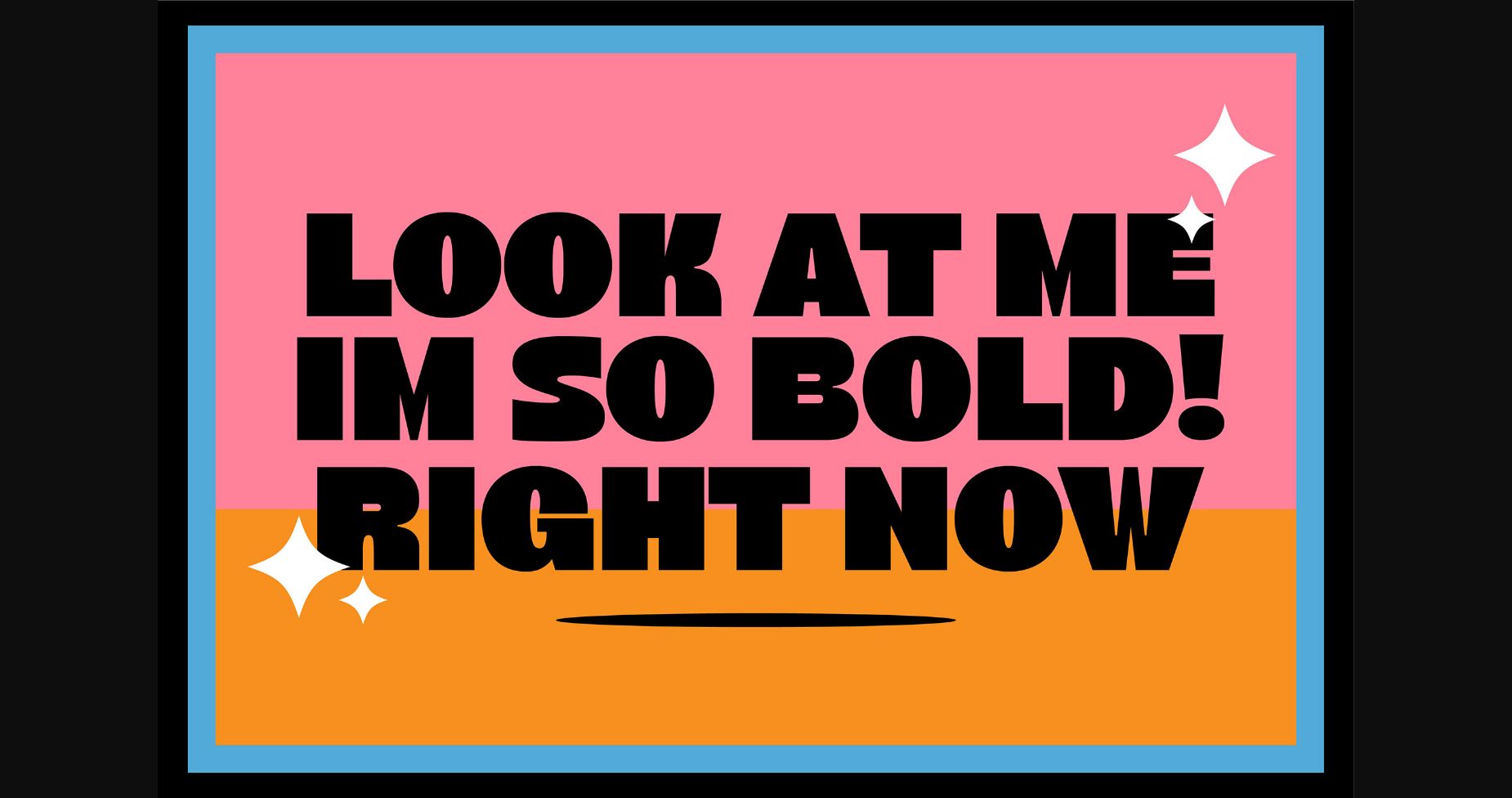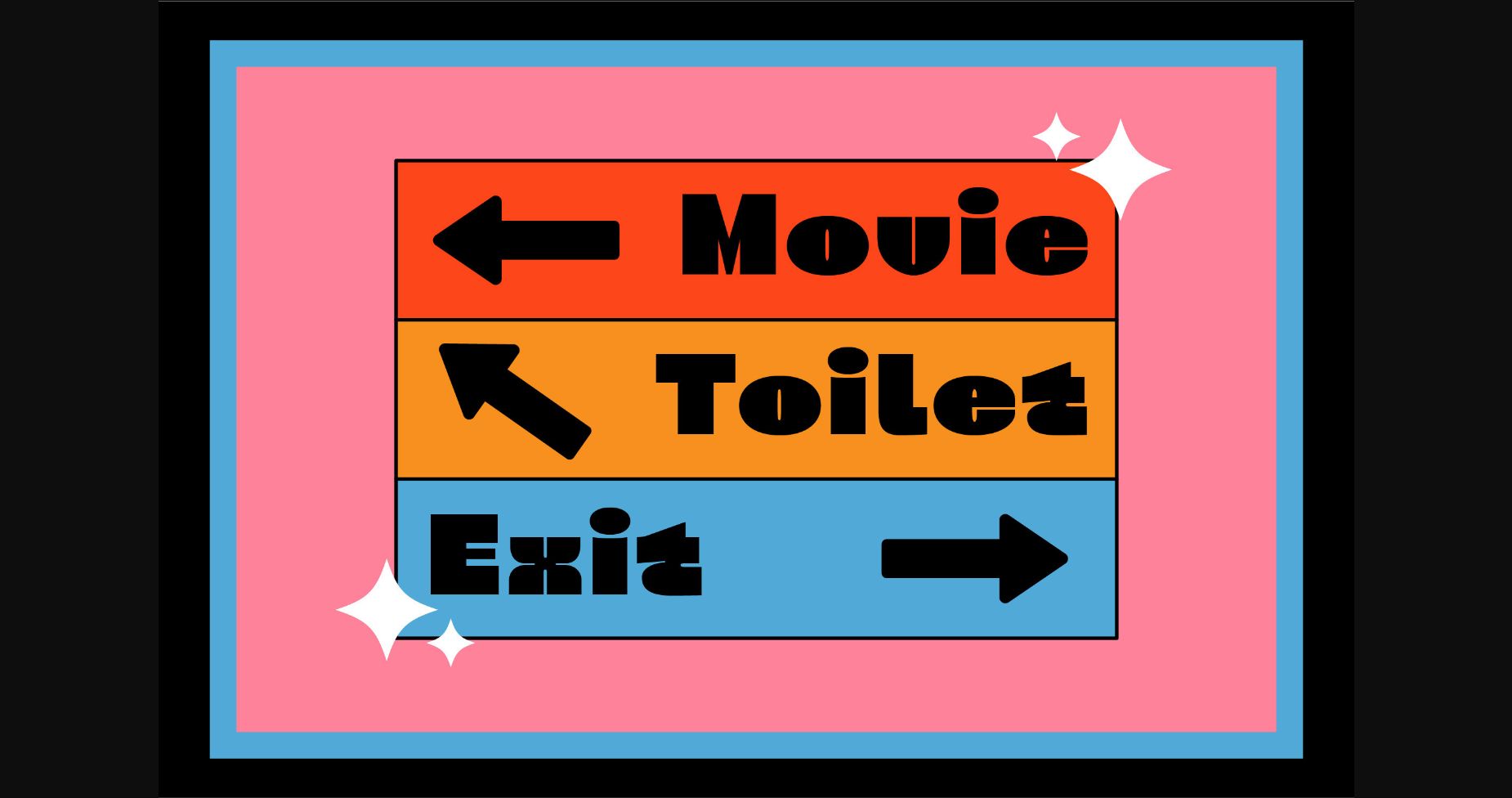
About Casgate Font
Casgate is a black sans serif with a small white space. Having a loud shape with strong character, Casgate is perfect for your standout project. It can be the solution for good headliners for logo branding, poster, social media needs, magazine, packaging, etc.